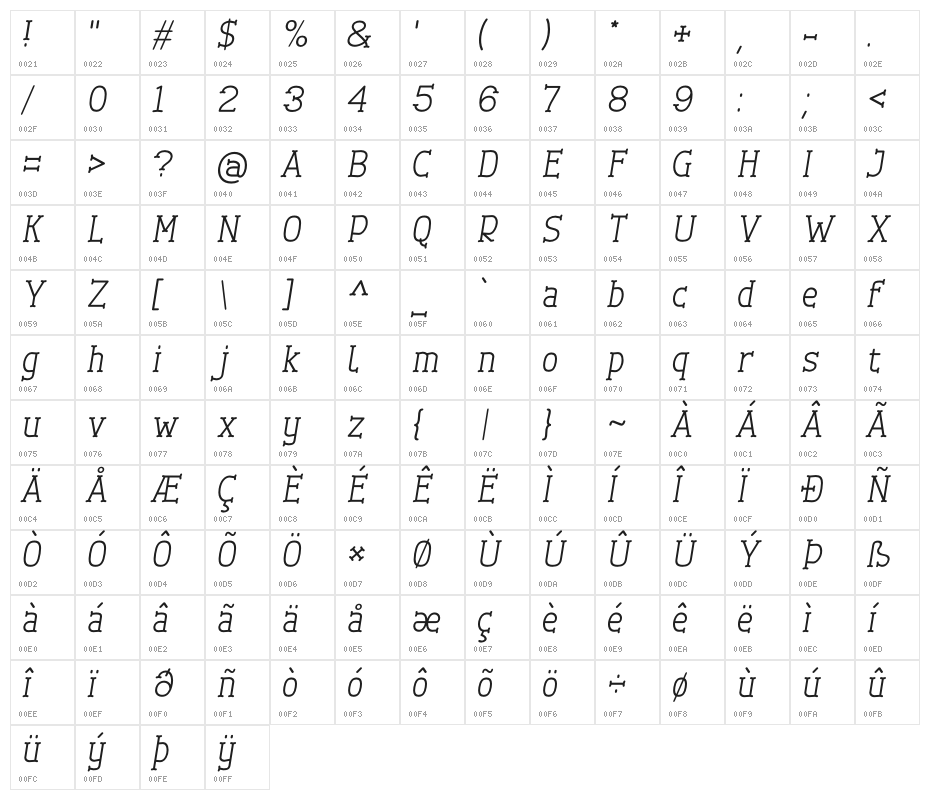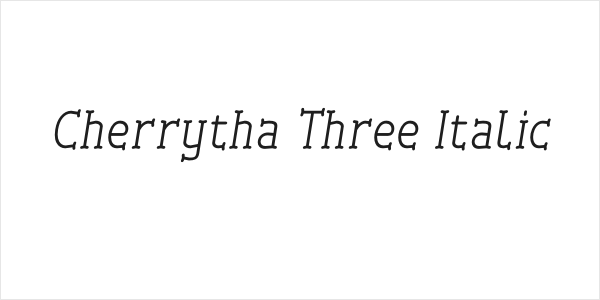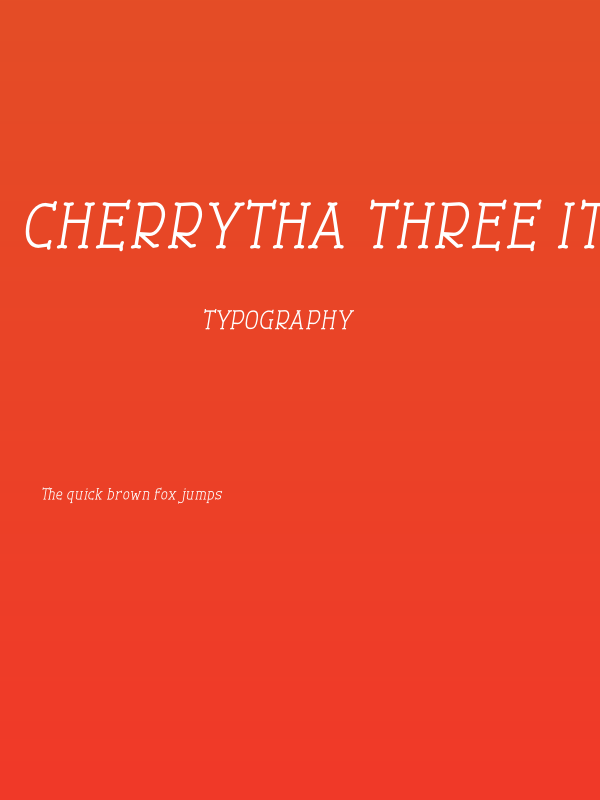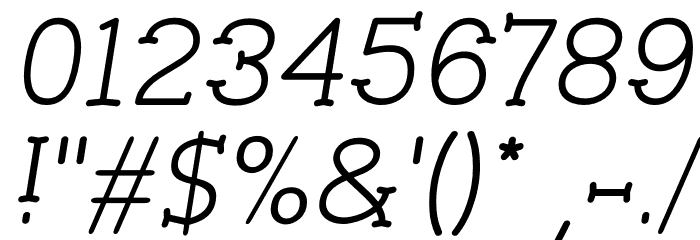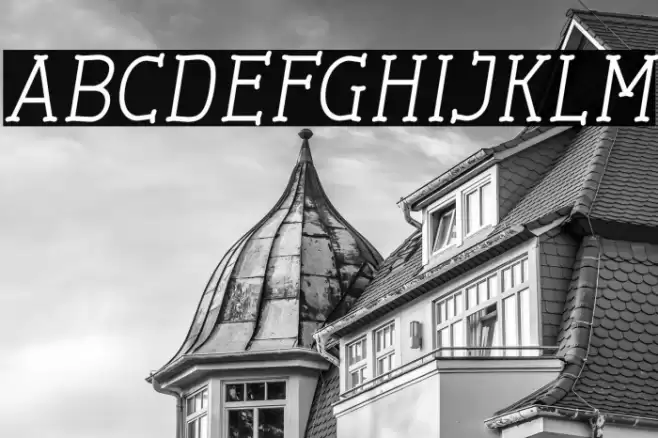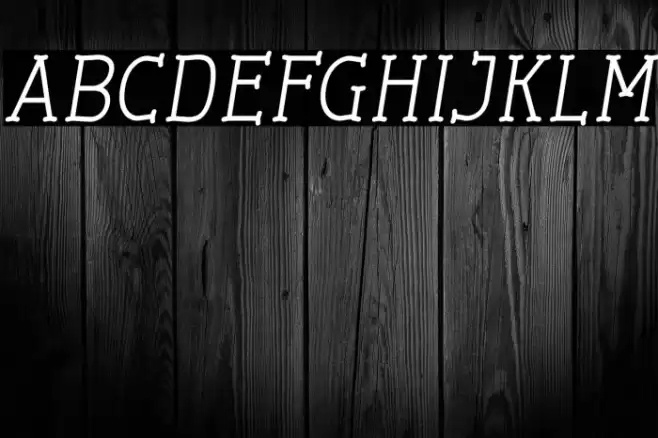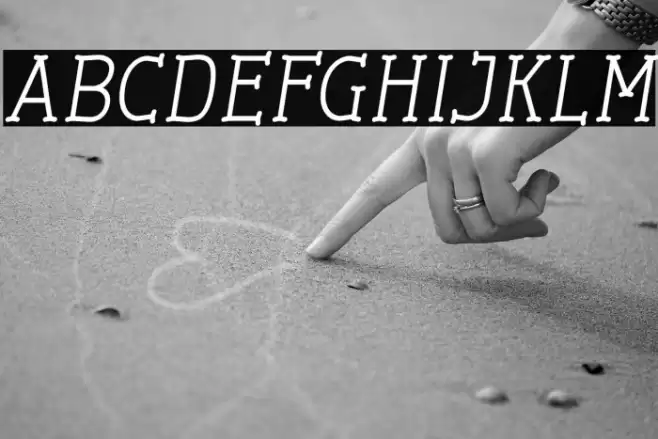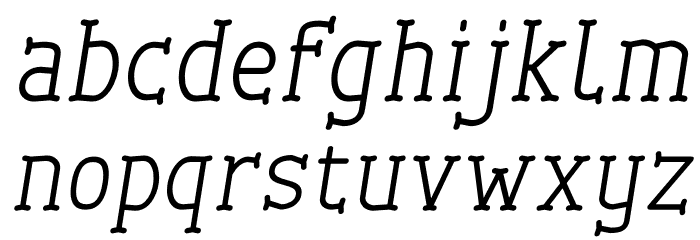
Cherrytha Three Italic Font
Cherrytha Three Italic Description
This font features a distinctive italic style with a handwritten feel, characterized by its slanted, flowing letters. The uppercase and lowercase letters maintain a consistent stroke width, giving it a uniform appearance. The numerals are clear and easy to read, complementing the alphabetic characters. Special characters are well-integrated, maintaining the overall aesthetic. The font's design is both elegant and approachable, making it suitable for a variety of applications where a personal touch is desired.
| Use Case | Logos, Invitations, Personal Branding |
| Proposed Projects | Ideal for greeting cards, invitations, personal branding, and creative projects requiring a personal touch. |